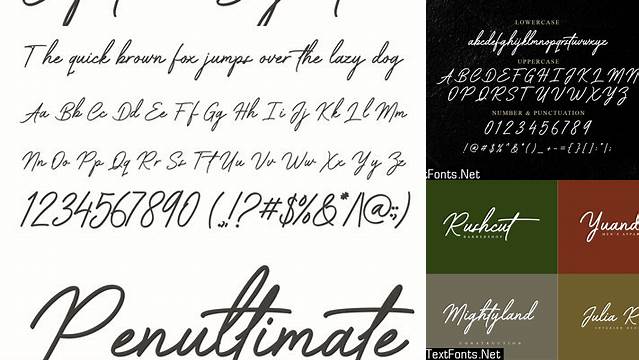
Hey guys, are you on the hunt for a killer font that screams elegance and style? Look no further than the CapeTown Signature Regular font! This beauty is perfect for adding a touch of sophistication to your projects, and the best part? You can snag a free download! In this guide, we'll dive into everything you need to know about CapeTown Signature Regular, where to find it, how to use it, and why it's a must-have for your font collection. So, let's get started!
Discovering the Allure of CapeTown Signature Regular
Firstly, what makes the CapeTown Signature Regular font so special? Well, it's all about that stunning signature style. This font mimics the graceful flow of a handwritten signature, offering a personalized and high-end feel. Whether you're designing invitations, crafting logos, or sprucing up your website, CapeTown Signature Regular can elevate your project. The font's versatility is a major draw. It's equally at home in formal settings and more casual designs, making it a fantastic choice for a wide range of applications. Think about the impact of a beautifully designed business card or a wedding invitation that exudes class. That's the power of a well-chosen font, and CapeTown Signature Regular delivers in spades.
This font isn't just about aesthetics; it's also about creating a connection with your audience. The handwritten feel adds a human touch, making your designs more approachable and memorable. In a world filled with generic fonts, CapeTown Signature Regular stands out, helping you to establish a unique brand identity. Also, consider the readability. While some signature fonts can be difficult to read, this font strikes a balance between style and legibility, ensuring your message is both beautiful and clear. The elegant curves and flourishes add visual interest without compromising functionality. This makes it perfect for both headlines and body text, giving you the flexibility to use it across your entire design.
So, when you're searching for a font that blends elegance, personality, and usability, keep CapeTown Signature Regular at the top of your list. It's a game-changer for anyone looking to add a touch of class to their creative work. It's not just a font; it's an investment in your brand's visual appeal. Furthermore, think about the emotional response you want to evoke. Do you want to project sophistication, warmth, or a sense of luxury? The CapeTown Signature Regular font can help you achieve all of these. That handwritten style is perfect for conveying a sense of authenticity and craftsmanship, making your designs more trustworthy and appealing to your target audience. It's a subtle yet powerful way to communicate your brand's values and create a lasting impression. That’s what a great font can do, and this is why CapeTown Signature Regular is so good.
Now for the fun part: using the font. CapeTown Signature Regular is perfect for headlines, titles, and any text that needs a touch of elegance. It's also great for creating logos, branding materials, and social media graphics. You can combine it with other fonts to create diverse and balanced designs. Try pairing it with a clean sans-serif font for body text to provide contrast and improve readability. Experiment with different font sizes, colors, and spacing to find the perfect look for your project. Also, think about the context of your design. For instance, use it for wedding invitations, personal notes, or any project where you want to communicate a sense of sophistication and style. The versatility of this font allows it to adapt to a wide range of creative endeavors.
When using CapeTown Signature Regular, keep in mind its delicate nature. Avoid using it in extremely small sizes, as this might affect its readability. Choose colors that complement the font's style, such as muted pastels or deep, rich tones. Play around with kerning (the spacing between letters) to optimize the visual appearance of your text. Also, remember to save your designs in a format that supports the font, such as PDF or a native design file. By mastering these simple steps, you'll be well on your way to creating stunning designs with the CapeTown Signature Regular font. So, have fun and let your creativity flow!